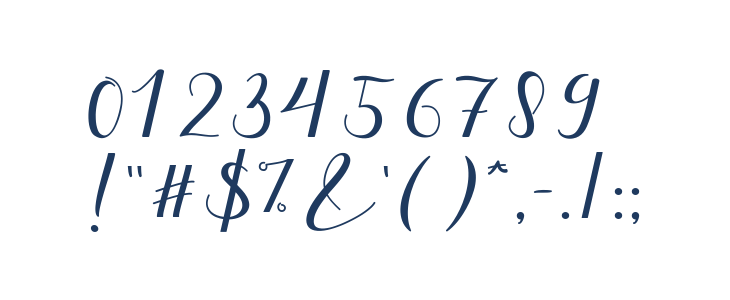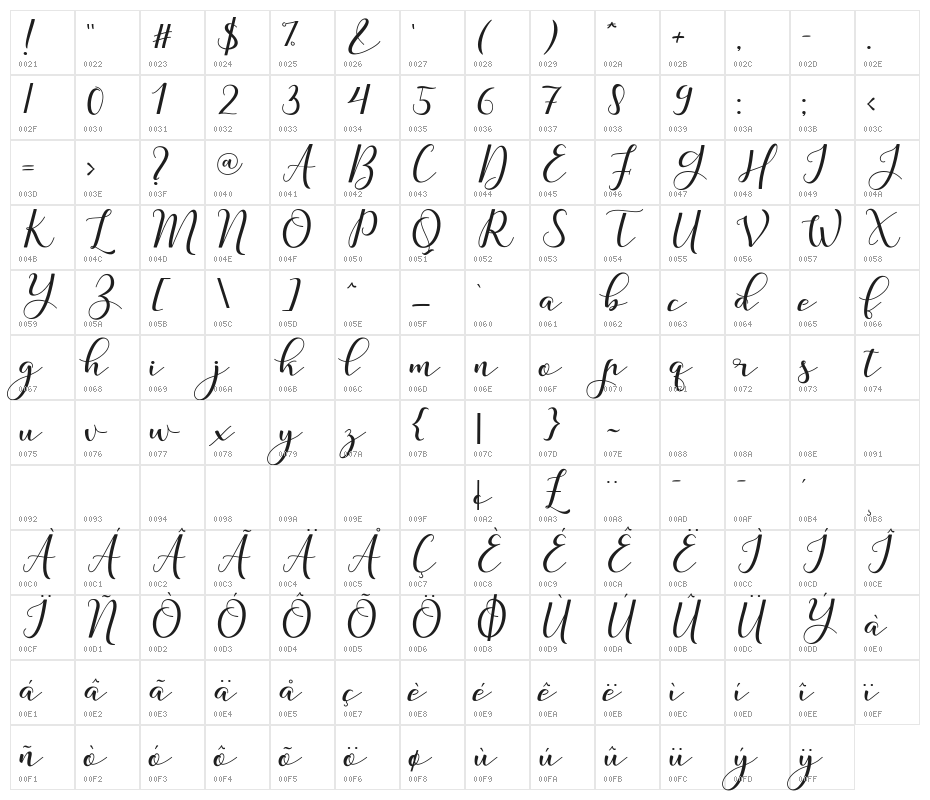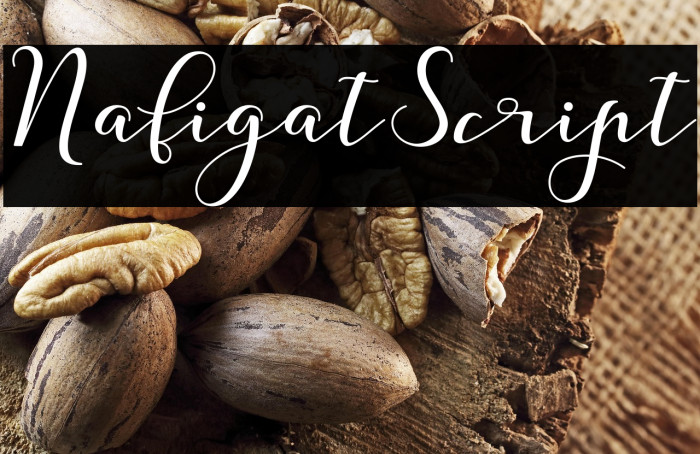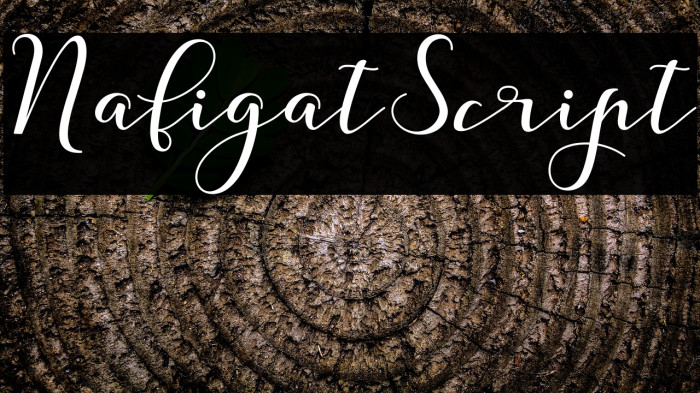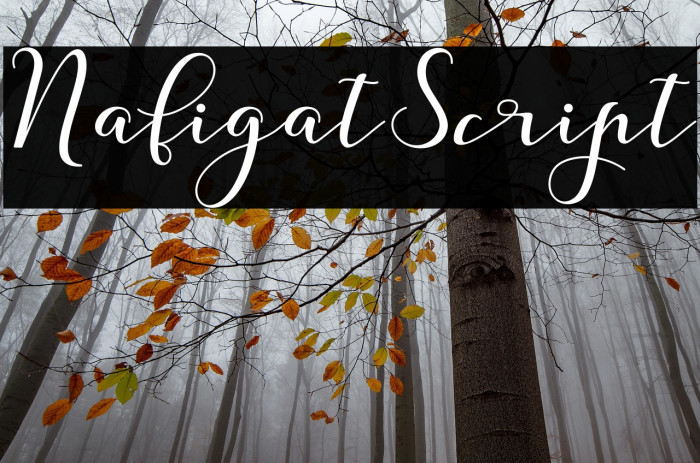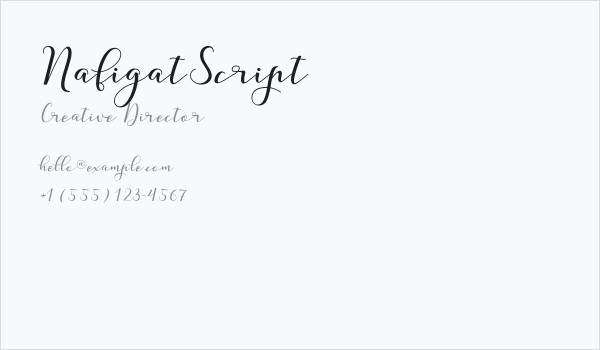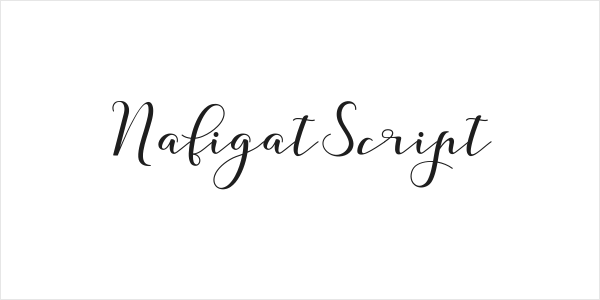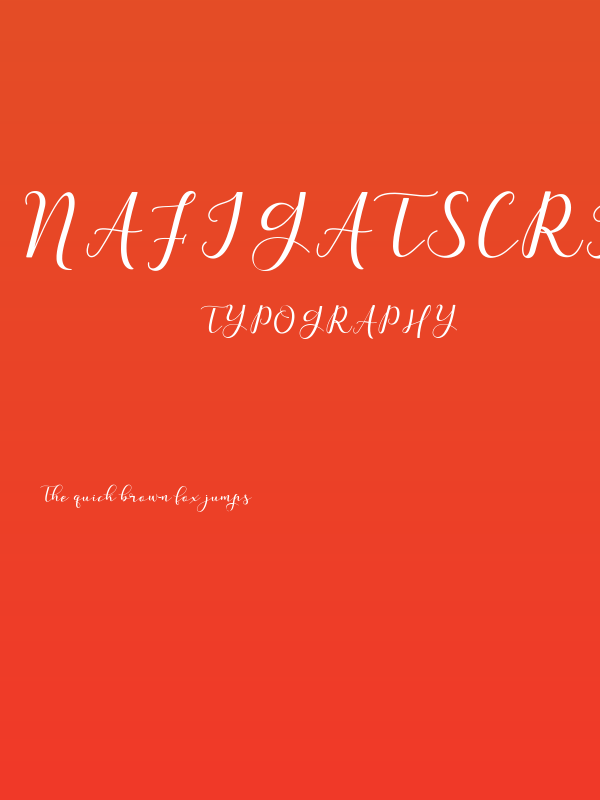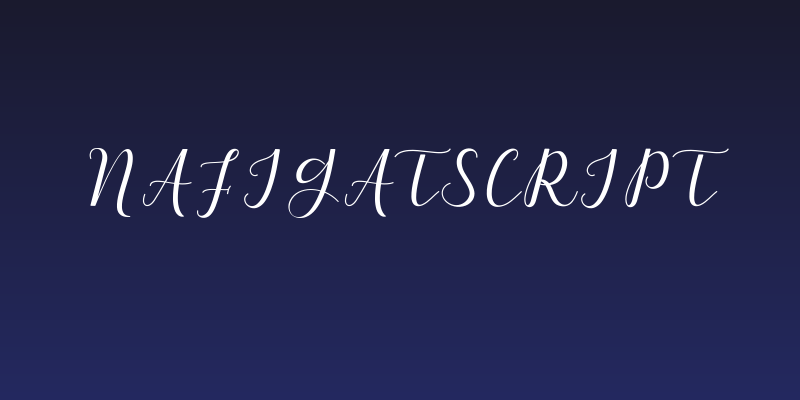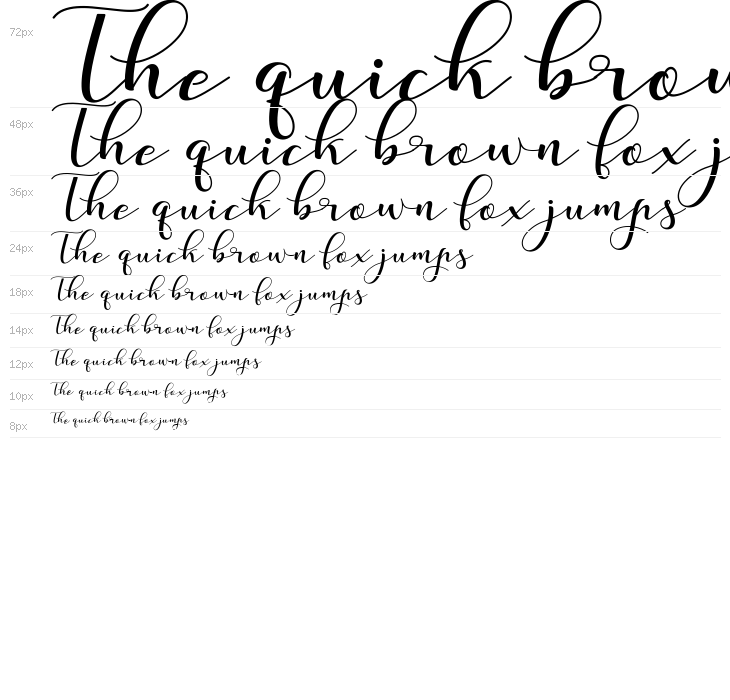
NafigatScript Font
NafigatScript Description
This elegant script font features a flowing, cursive style with a modern twist. The uppercase letters are characterized by their tall, graceful loops and sweeping curves, while the lowercase letters maintain a consistent fluidity, enhancing readability. The numerals are stylish yet clear, making them suitable for various applications. Special characters are thoughtfully designed, maintaining the overall aesthetic of the font. The strokes are moderately thick, providing a balanced contrast that adds to the font's sophistication. This font is perfect for projects that require a touch of elegance and personality.